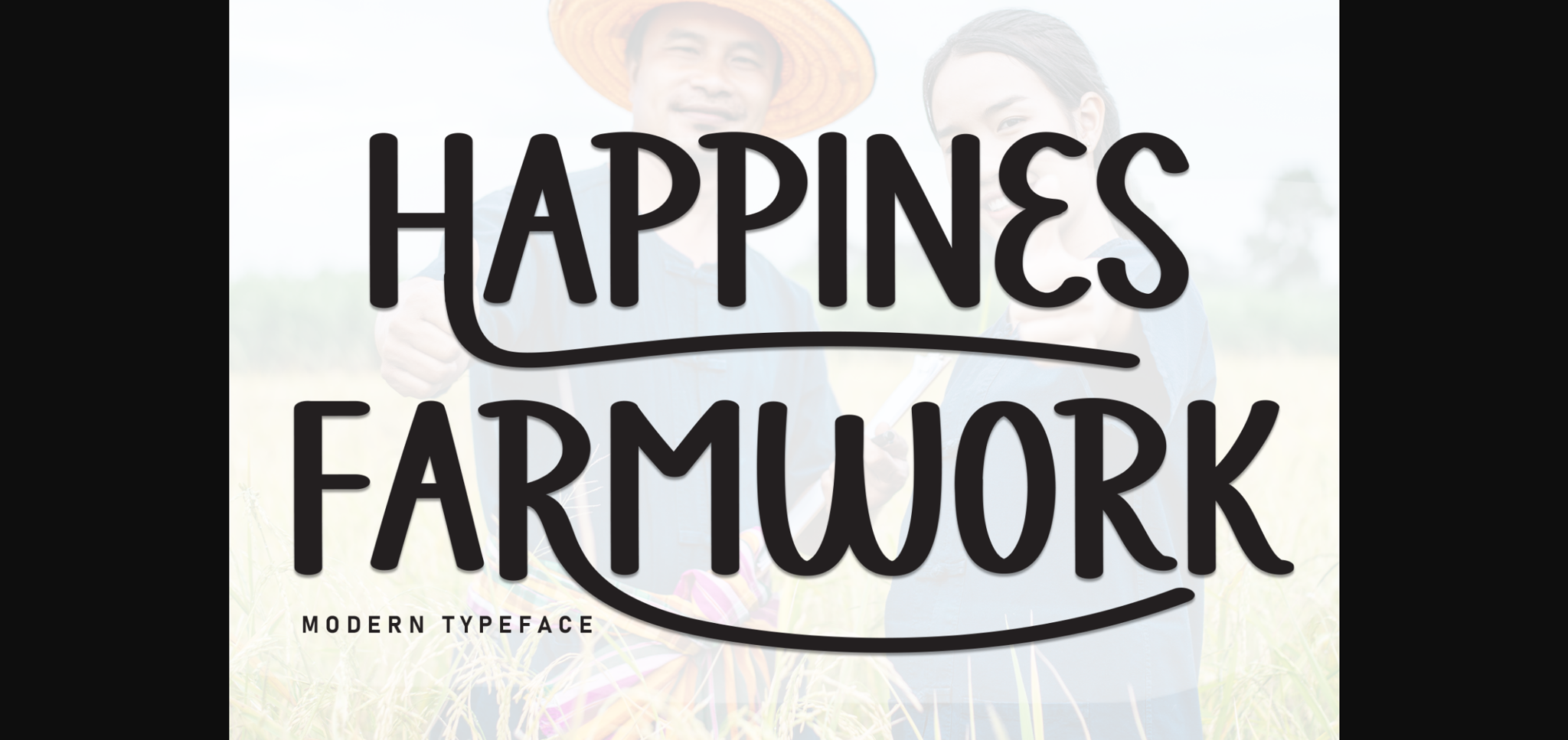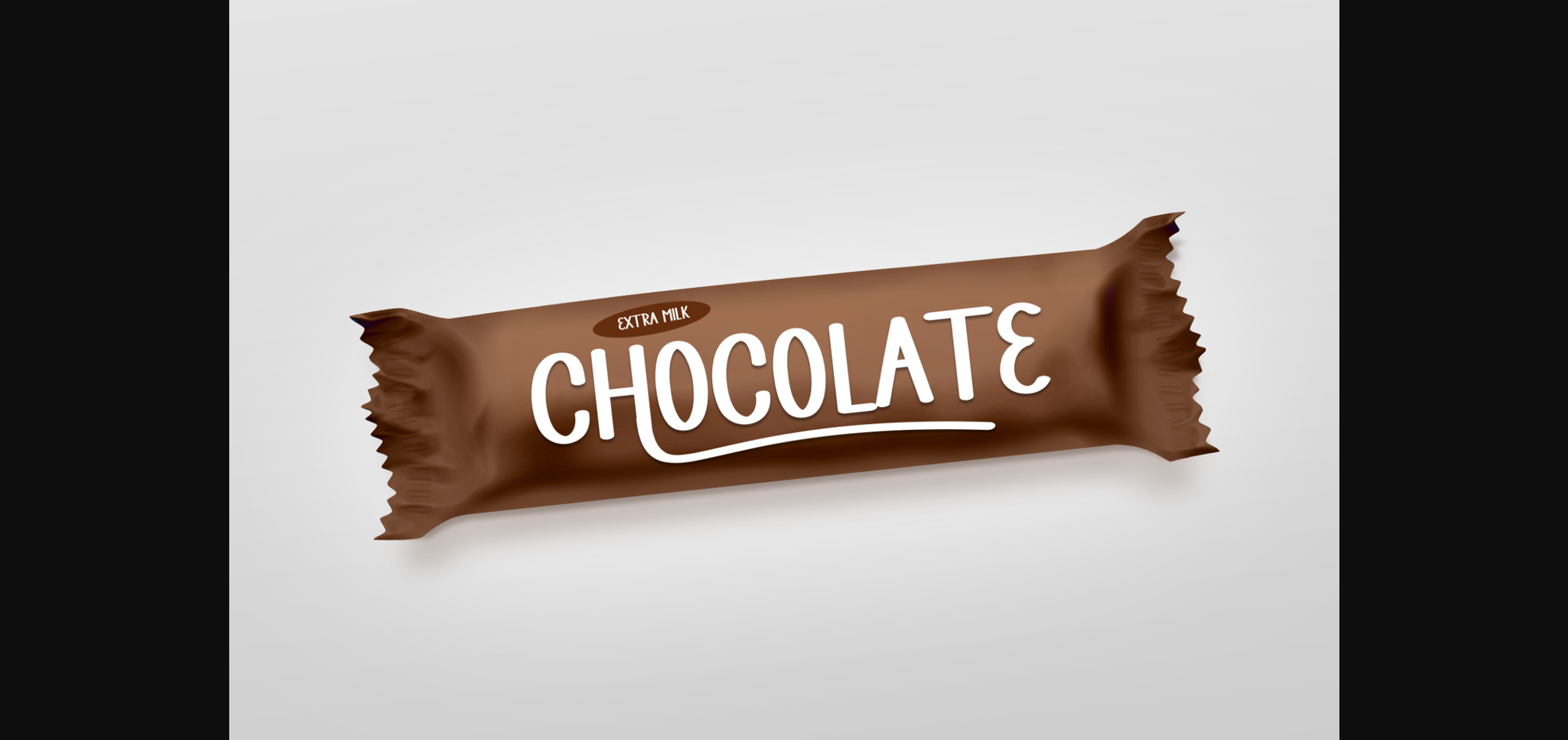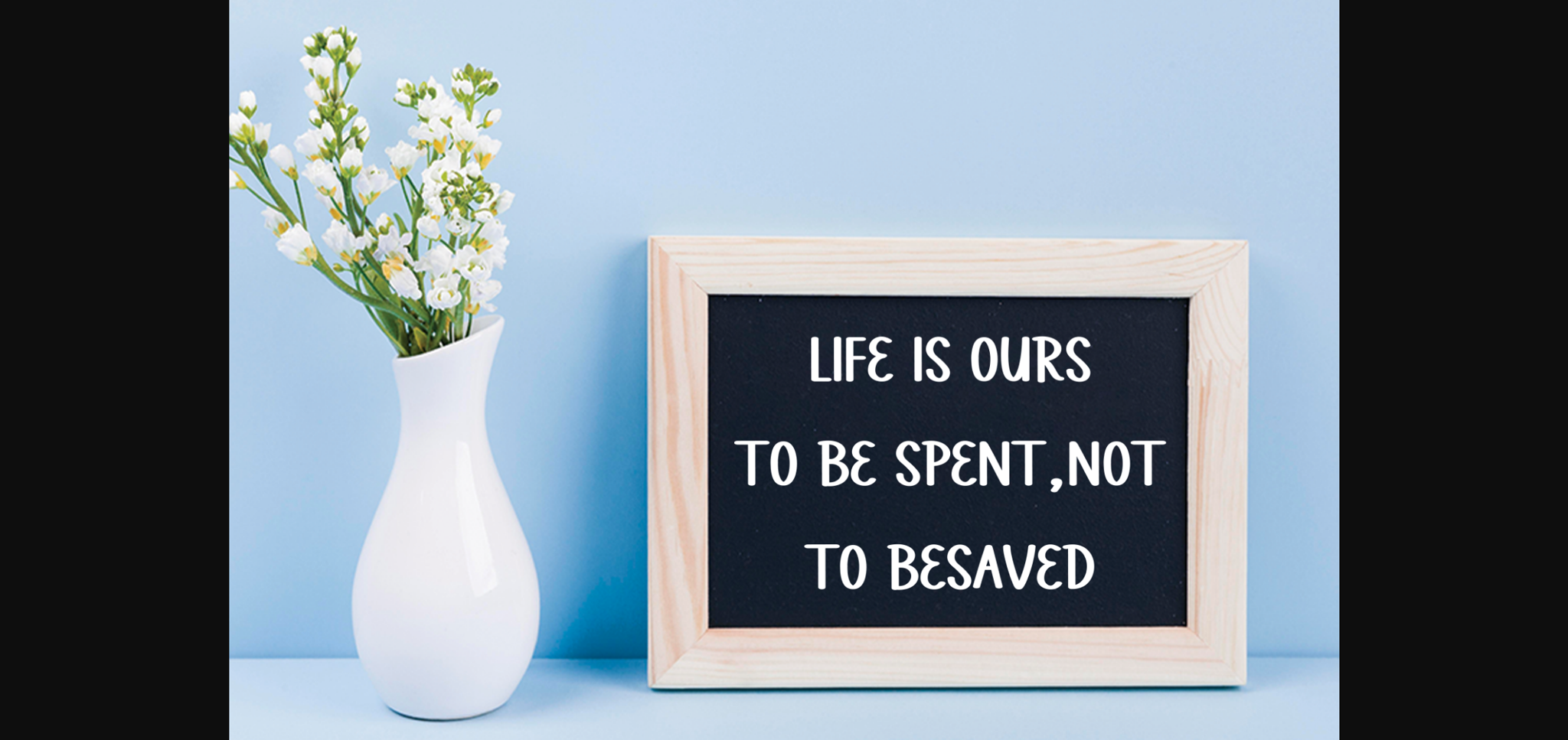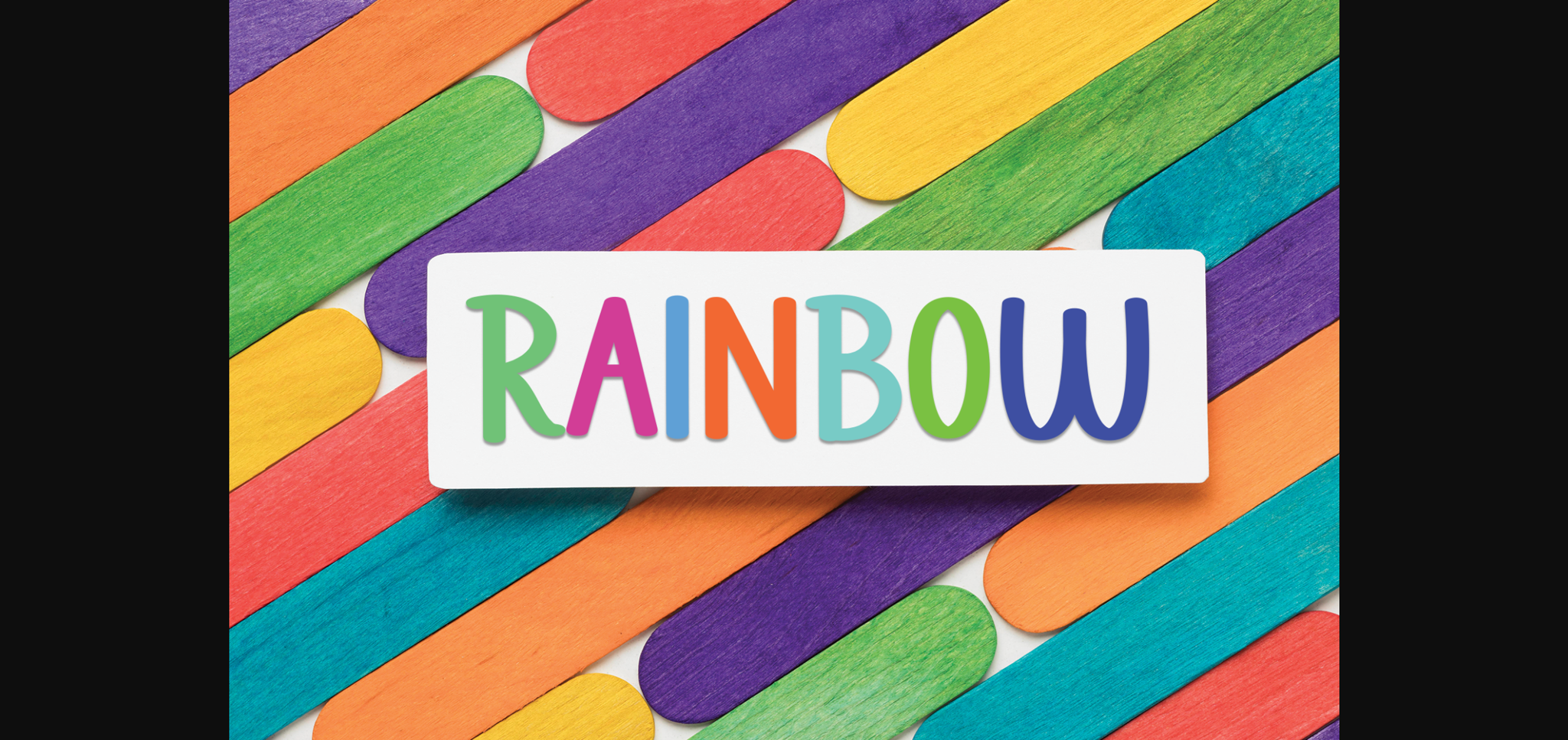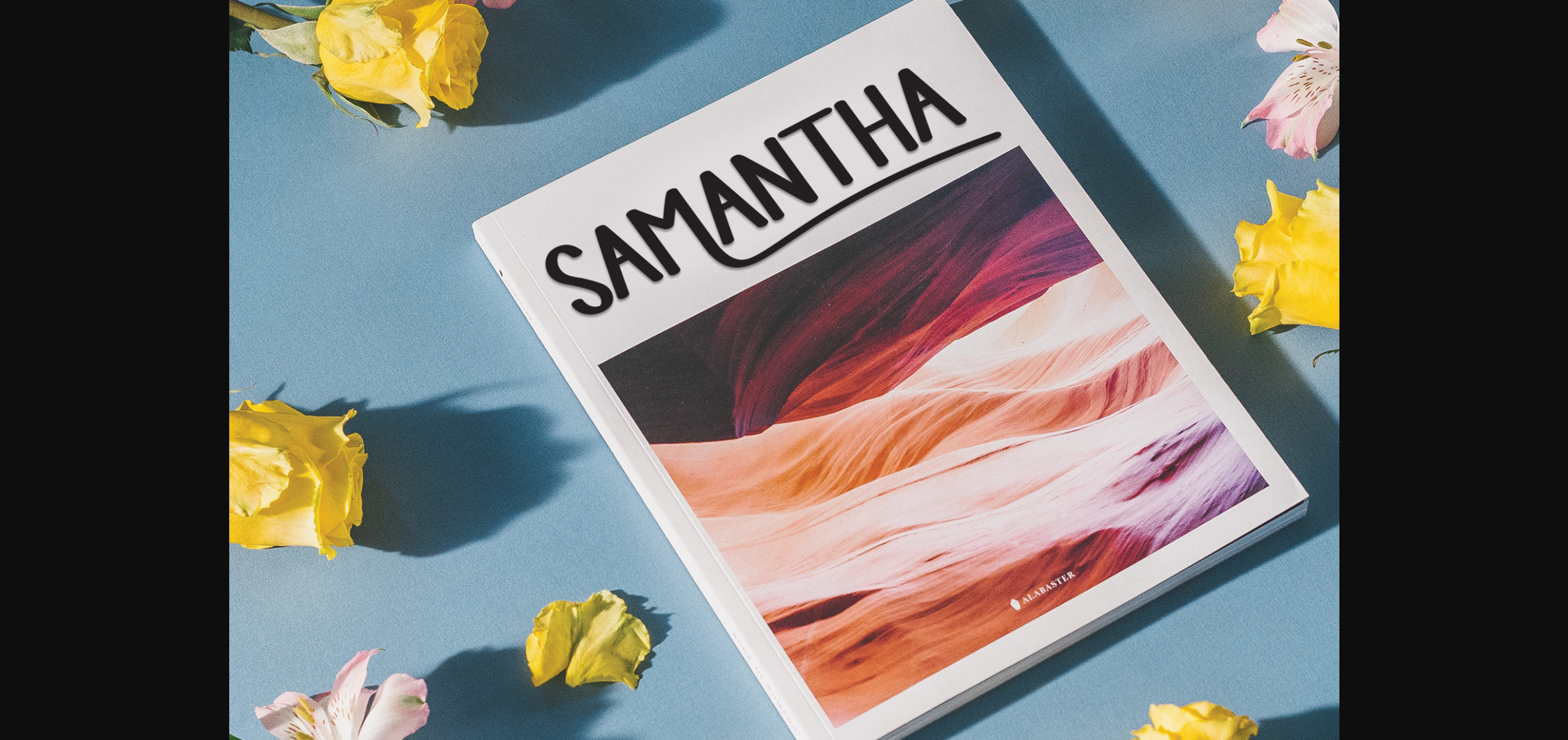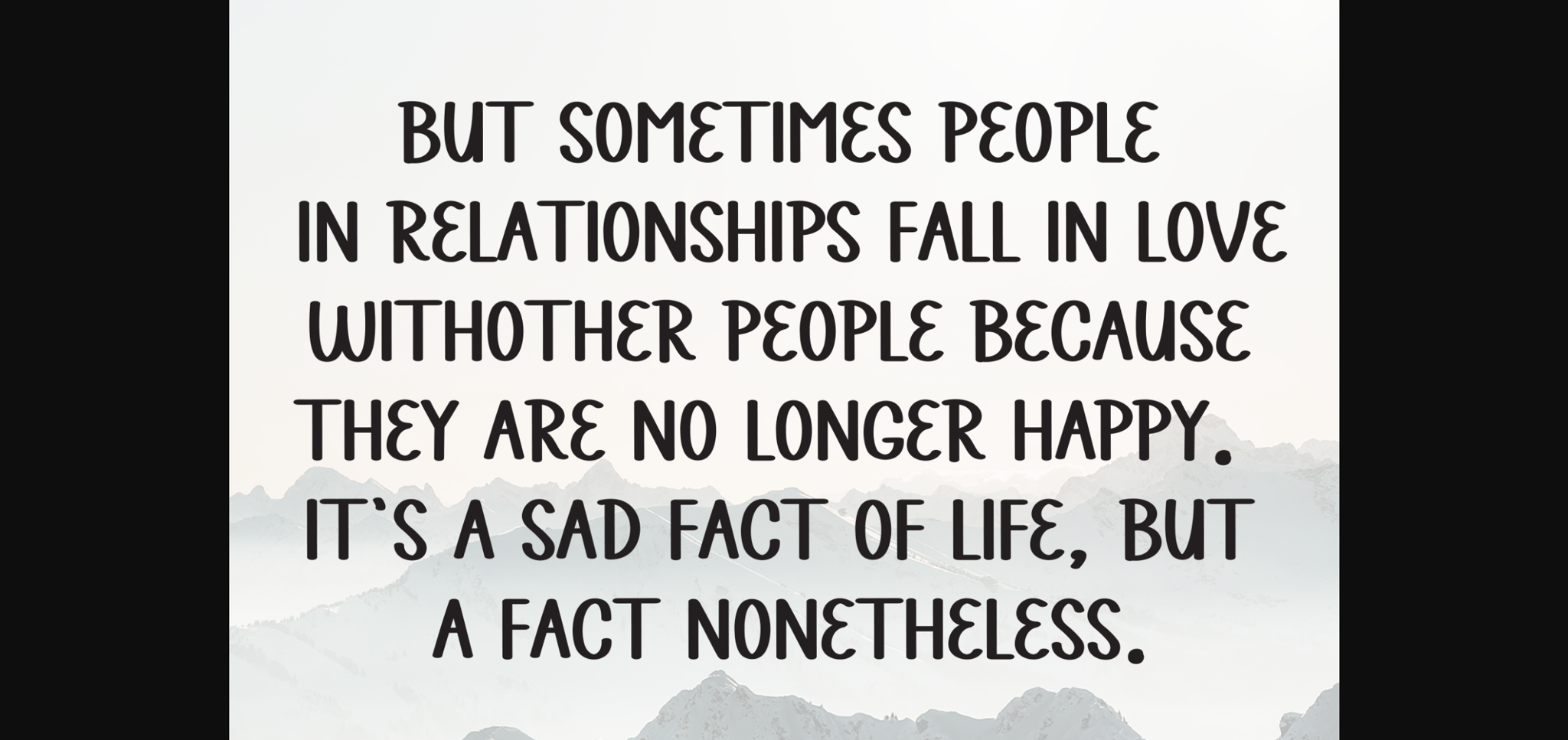
Happines Farmwork Font
About Happines Farmwork Font
Happines Farmwork is a sweet and friendly sans-serif font. Cute yet versatile, this font is ideal for writing wedding invitations, cards, or any other design that might need a lovely touch!